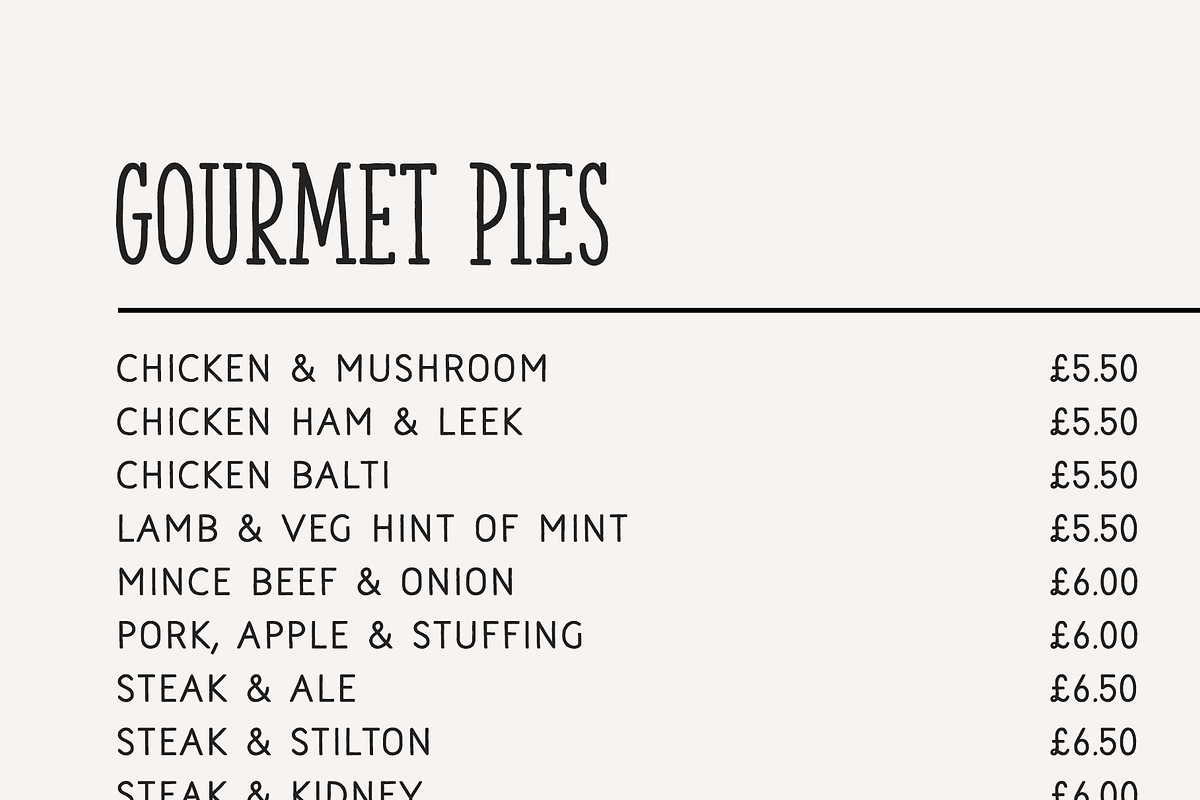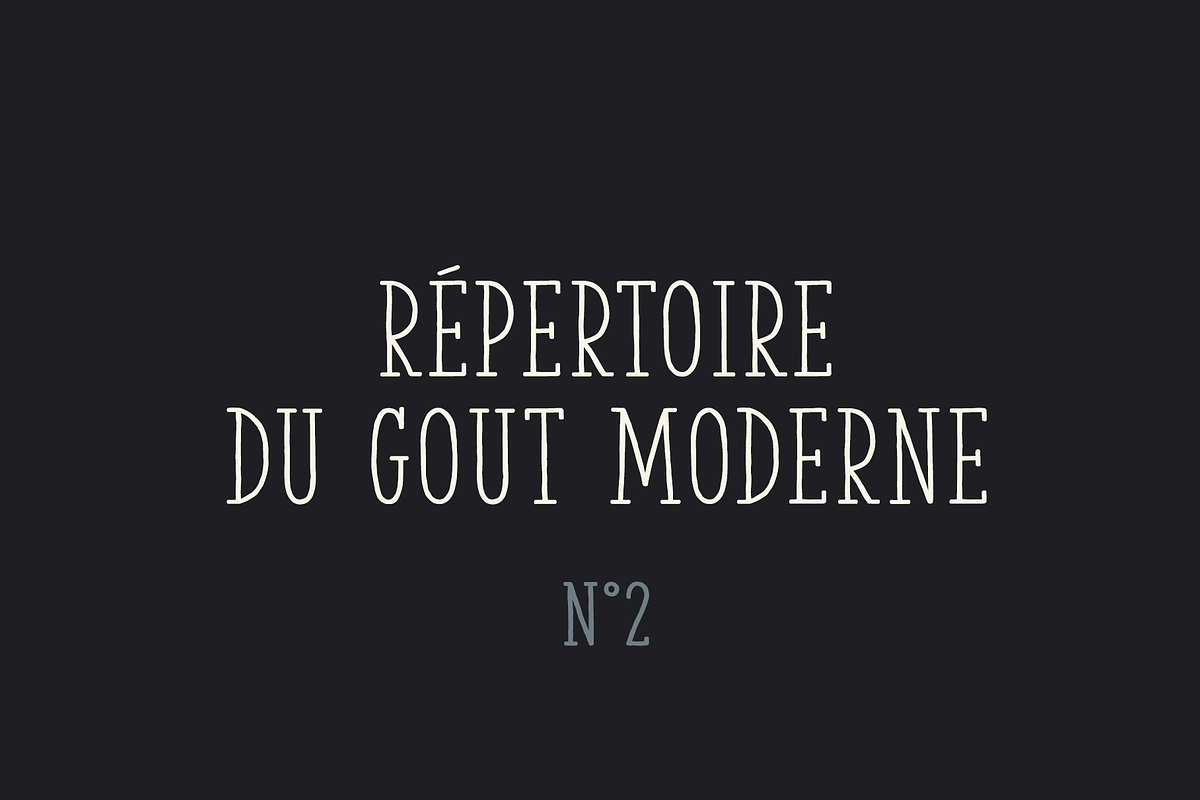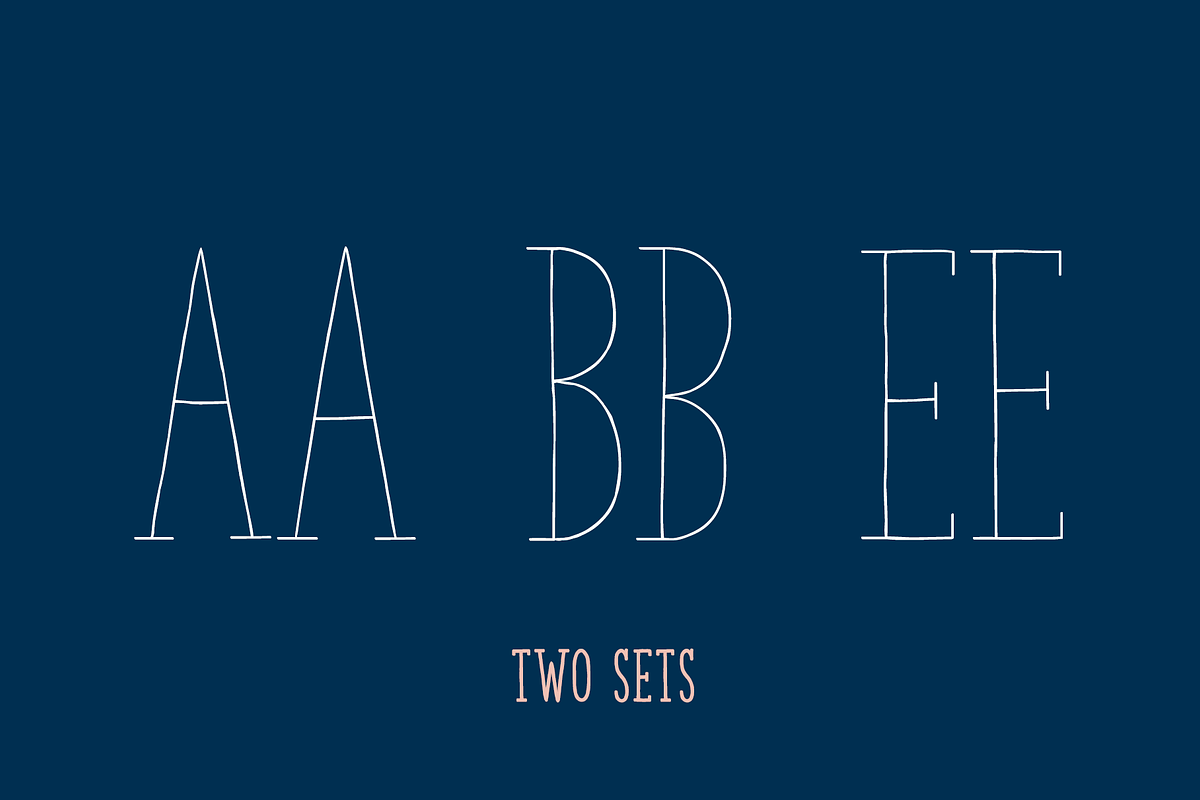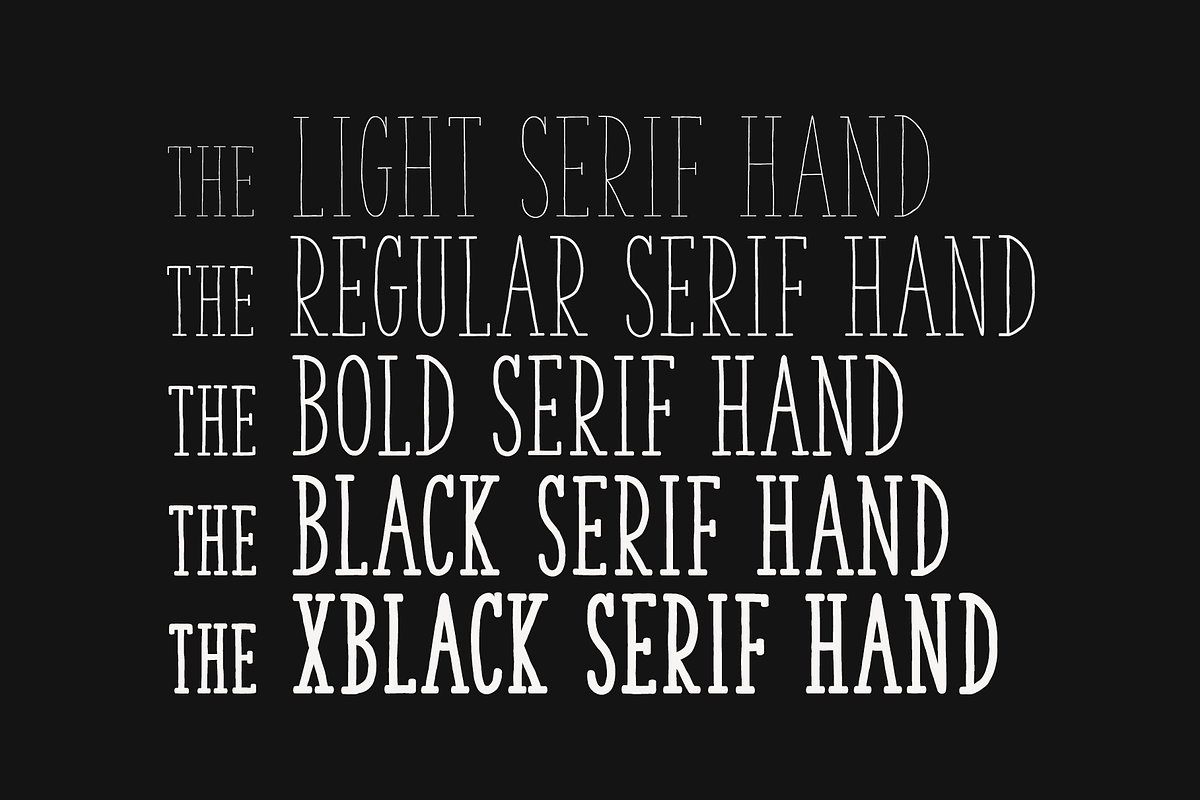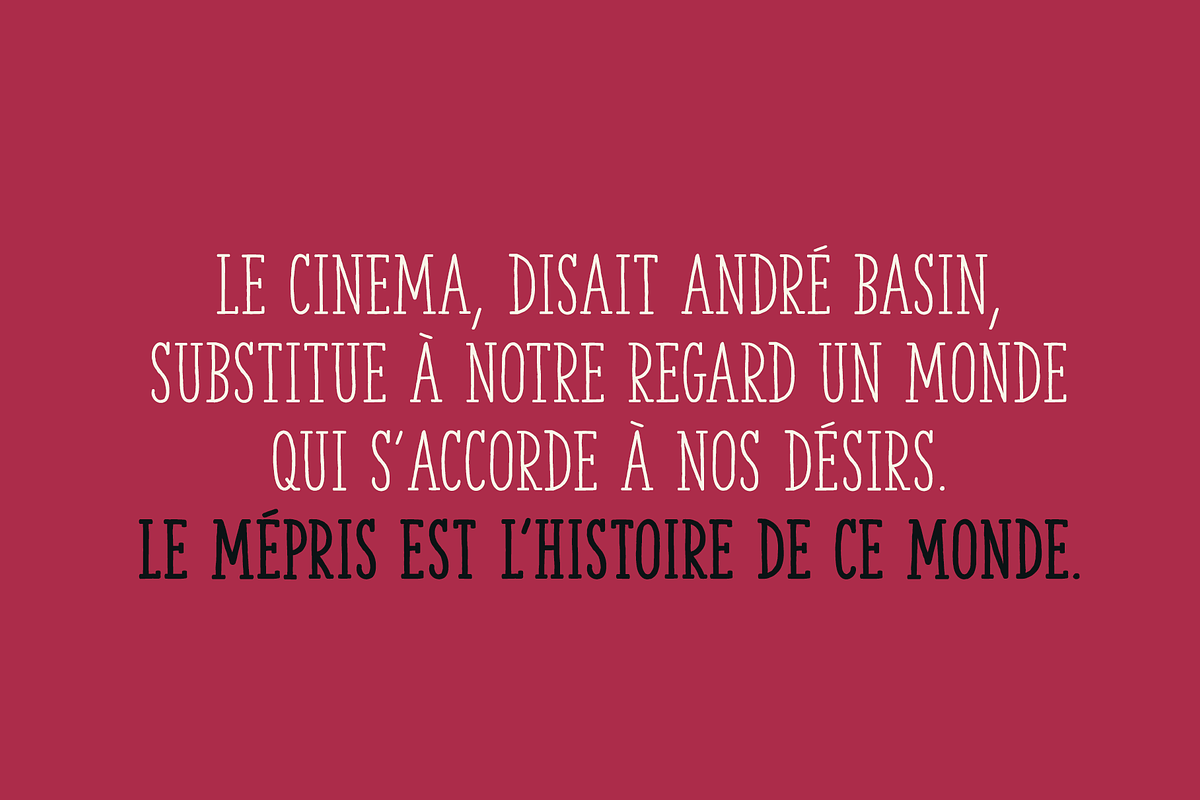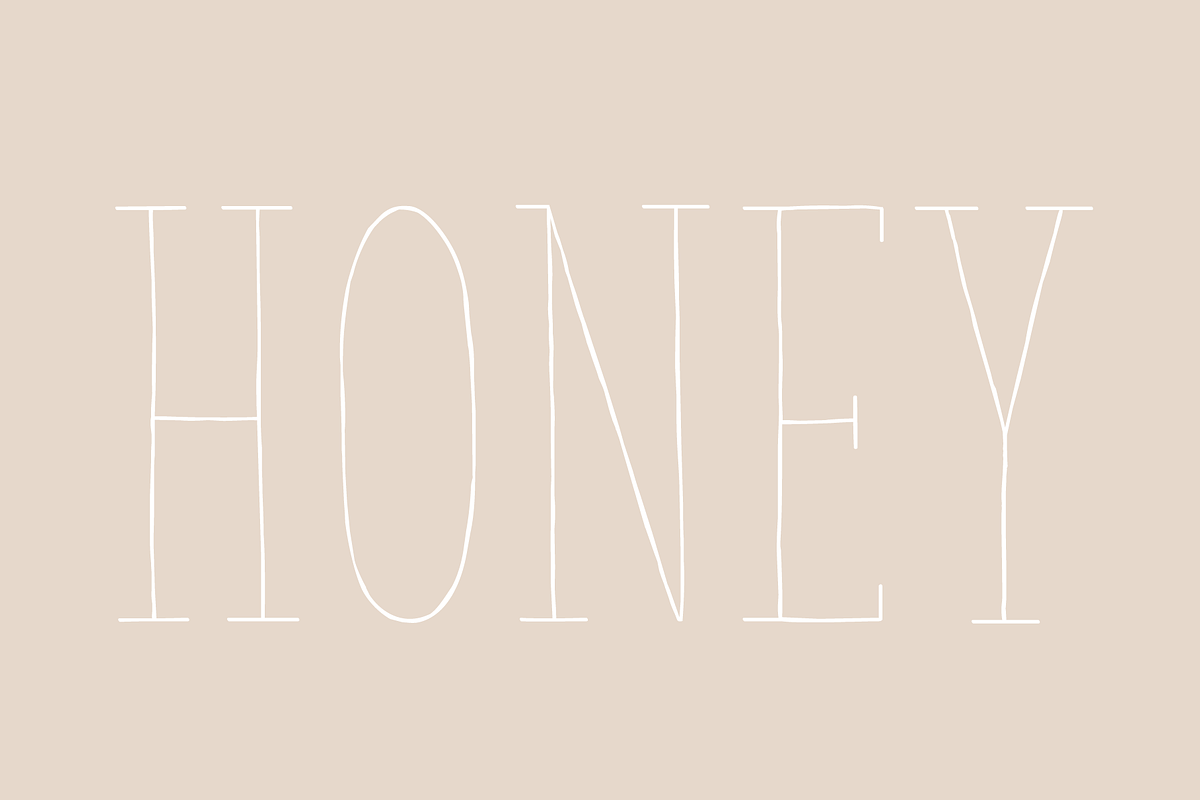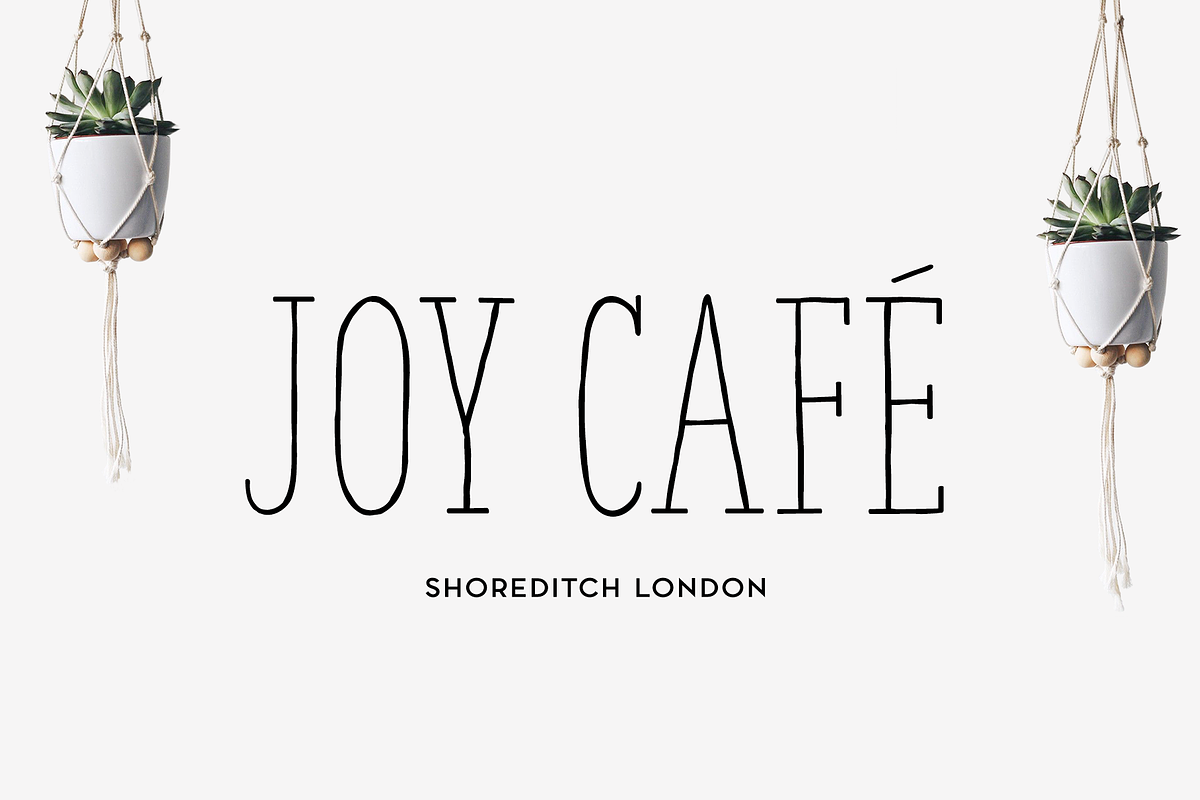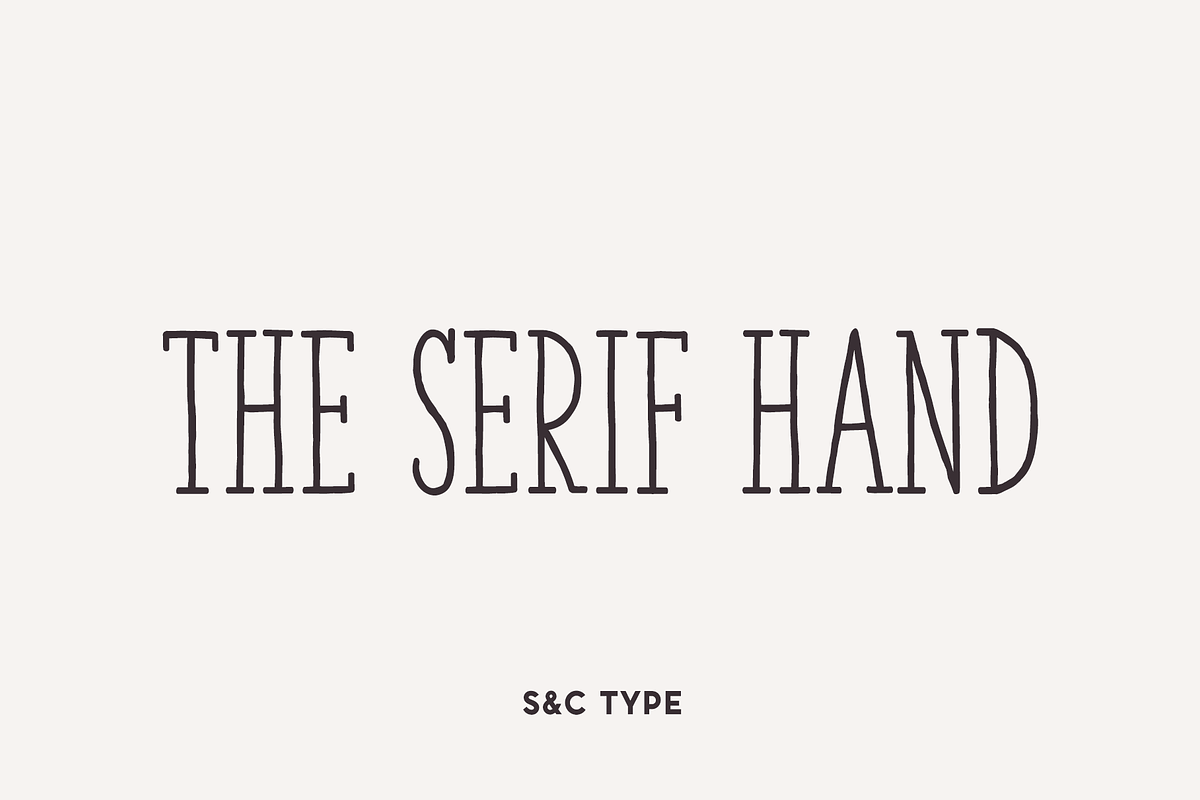
The Serif Hand Font Collection
The Serif Hand Font Collection by S&C Type is a font selected for branding, posters, packaging, typography.
- This pack includes 6 fonts: The Serif Hand Light The Serif Hand Regular The Serif Hand Bold The Serif Hand Black The Serif Hand Extrablack T
- It’s an all-caps font with 5 finely balanced weights with alternates: all the uppercase letters are a bit different from the lowercase lette
- The Serif Hand Light
- The Serif Hand Regular
- The Serif Hand Bold
- The Serif Hand Black
- The Serif Hand Extrablack
- The Serif Hand Dotted
Why The Serif Hand Font Collection is worth a look
The Serif Hand Font Collection by S&C Type fits naturally into Branding, posters, packaging, typography.